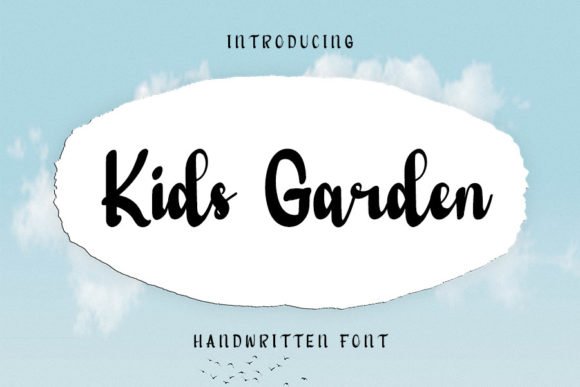
Discover the Timeless Elegance of Kids Garden Font
Have you ever sat in a quiet moment, surrounded by nature, and let your imagination run wild? Perhaps you’re brainstorming a new project, and the perfect font is eluding you. I know that feeling – it’s like searching for a missing piece to complete the puzzle. That’s when I stumbled upon the Kids Garden Font, a beautiful handwritten font that instantly sparked my creativity.
With its contemporary atmosphere and impeccable form, the Kids Garden Font is a perfect blend of classic and modern. Designed to enhance the beauty of your projects, this versatile font is a must-have for any designer looking to add a touch of sophistication and whimsy to their work. Whether you’re working on a branding project, a children’s book, or a wedding invitation, the Kids Garden Font is sure to bring a sense of wonder and magic to your design.
Kids Garden Font Key Features
- Unique Characteristics: The font features playful and whimsical letterforms, making it perfect for children’s educational materials, nursery decor, and other projects that require a friendly and approachable tone.
Designer Review: Kids Garden Font
Overall, I think the Kids Garden Font has some nice qualities that make it a decent addition to any project. ✨ The font’s playful and whimsical feel is sure to bring a smile to the faces of its users, especially in children’s content or educational materials. The font’s use of vibrant colors and organic shapes is well-executed and adds a lot of visual interest.
- ✨ The font’s unique and varied letterforms make it stand out from more generic sans-serif fonts.
- ✨ The font’s use of bold and italic styles adds depth and variety to the overall design.
- ✨ The font’s customization options make it easy to adapt to different project requirements.
However, there are a few limitations that hold the font back from being truly exceptional. ⚠️ The font’s readability can be a bit of an issue, especially in smaller text sizes or when used for large blocks of text. Additionally, the font’s lack of support for certain languages may limit its use in global projects.
- ⚠️ The font’s readability can be a bit of an issue, especially in smaller text sizes or when used for large blocks of text.
- ⚠️ The font’s lack of support for certain languages may limit its use in global projects.
Overall, I would recommend the Kids Garden Font for projects where a playful and whimsical feel is desired. While it may not be the most versatile font, its unique qualities make it a great choice for the right project.
For the best results, use the Kids Garden Font in designs aimed at children, such as:
– Children’s book covers
– Educational materials
– Party invitations
– Kids’ menu boards
– Branding for children’s products
Use the font in bold and playful combinations to create engaging and fun designs.